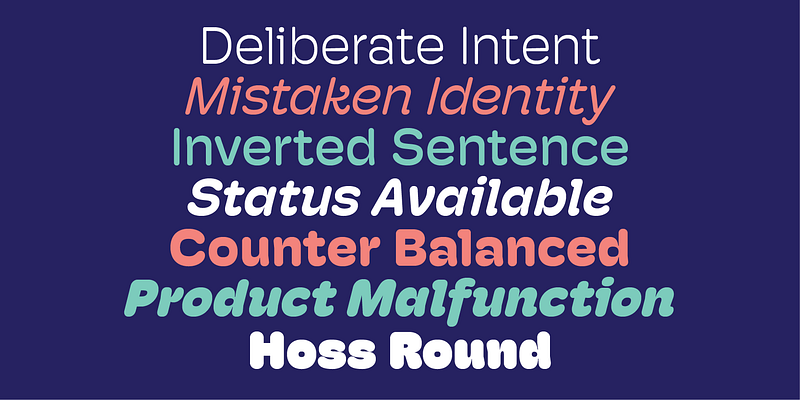
Hoss Round Font Free Download is a modern sans-serif typeface characterized by its smooth, rounded edges and contemporary design. Its friendly and approachable appearance makes it perfect for branding, web design, social media graphics, advertising, and any project that requires a clean and modern aesthetic.
The rounded forms of Hoss Round give it a soft, inviting feel, while still maintaining excellent readability. This font is ideal for both large headings and smaller body text, providing versatility in any design.